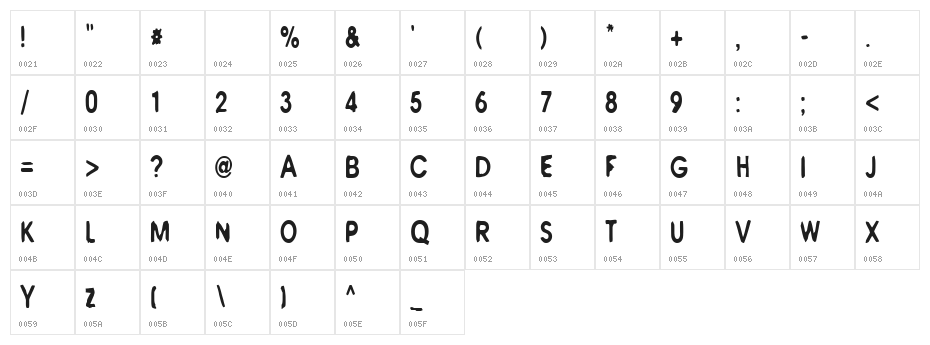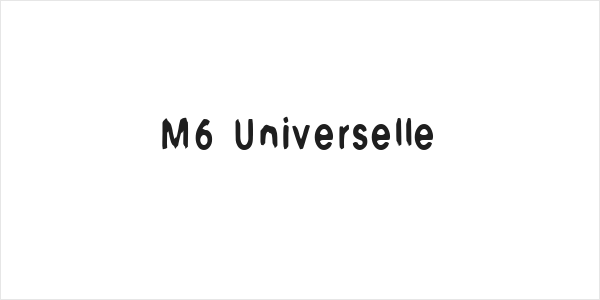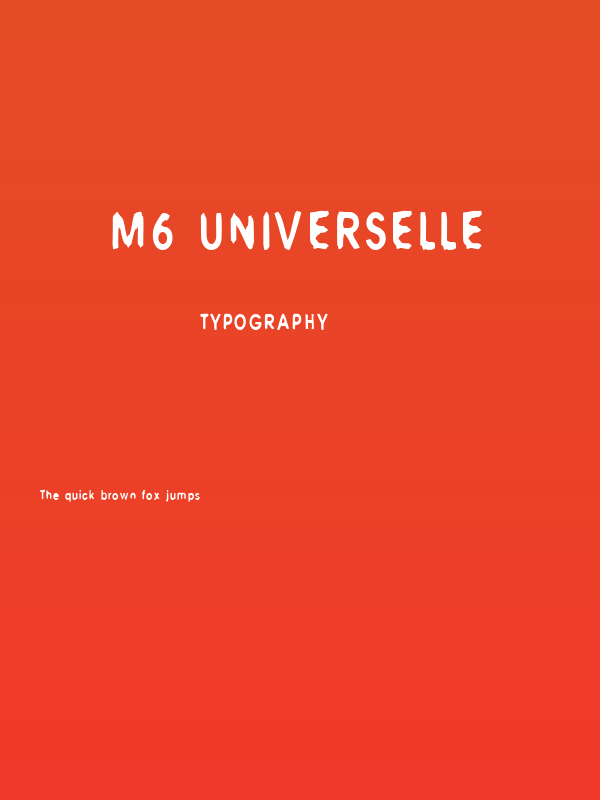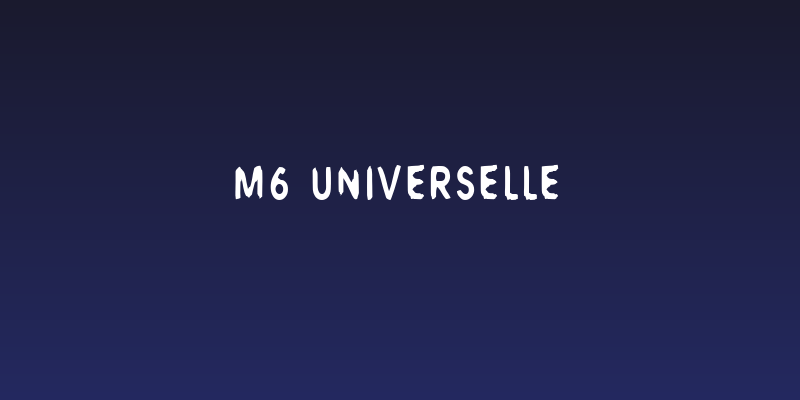
M6 Universelle Font
M6 Universelle Description
This font features a bold and playful design with a slightly irregular and hand-crafted appearance. The characters have a unique, organic feel, with varying stroke thickness that adds a dynamic and lively touch. The uppercase letters are robust and commanding, while the lowercase letters maintain a consistent style that complements the overall aesthetic. The numbers and special characters follow the same design principles, ensuring a cohesive look across all elements. This font is ideal for projects that require a fun and engaging visual impact.
| Overall Style | Playful, Organic |
| Proposed Projects | Ideal for children's books, playful branding, posters, and creative packaging. |